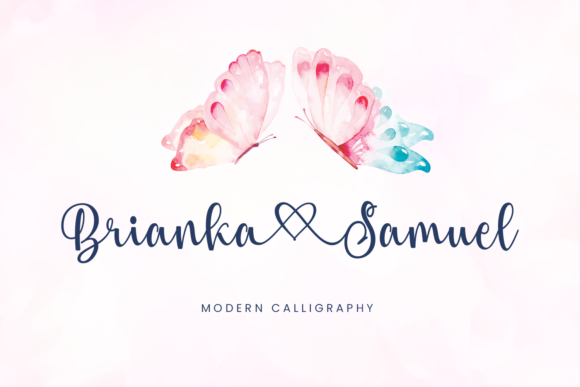
Brighten Up Your Designs with the Elegant Brianka Samuel Font
As designers, we’ve all had those moments where we stumble upon a font that sparks creativity and sets our projects apart. For me, it was when I discovered the Brianka Samuel Font – a beautiful handwritten font that exudes romance and authenticity. Its cursive characters and modern vibe immediately caught my attention, and I knew I had to learn more.
The Brianka Samuel Font is a versatile typeface that can add a touch of elegance to a wide range of designs, from wedding invitations and birthday cards to thank you notes and beyond. Its unique blend of classic and modern elements makes it a valuable asset for designers looking to create distinctive and memorable pieces.
Whether you’re a seasoned designer or just starting out, the Brianka Samuel Font is sure to inspire your next creative project. Its beauty and versatility make it a must-have for anyone looking to add a personal touch to their designs.
Brianka Samuel Font Key Features
- Font Family: Brianka Samuel Font is a unique, hand-drawn script font.
- Unique Characteristics: Features a flowing, cursive design with elegant flourishes and subtle texture, making it ideal for creative and artistic applications.
Brianka Samuel Font Review
As a designer, I’ve had the chance to work with the Brianka Samuel Font, and I must say, it’s a decent addition to any design project. ✨ One thing that really stands out is its elegant and refined aesthetic, making it perfect for high-end branding or luxury product designs. The font’s subtle curves and lines create a sophisticated look that’s hard to ignore.
Another aspect where the Brianka Samuel Font shines is its versatility. ✨ It comes in multiple weights and styles, allowing designers to create a wide range of effects and moods. Whether you’re going for a bold, statement-making look or a more understated, refined feel, this font has got you covered.
- ⚠️ Limited language support, which may be a concern for designers working with non-English languages.
- ⚠️ The font may not be suitable for body text, as it can be quite ornate and may be difficult to read in larger quantities.
Overall, the Brianka Samuel Font is a solid choice for designers looking to add a touch of elegance and sophistication to their projects. While it may have some limitations, its versatility and refined aesthetic make it a valuable addition to any design toolkit.
The Brianka Samuel Font is suitable for a variety of design applications, including:
- Body text
- Infographics and data visualizations
Alternatives to Brianka Samuel Font
The Merriweather Font is a classic serif font that is suitable for body text, particularly in formal documents and academic papers. It’s known for its readability and elegance. When to use: Formal documents, academic papers, and body text.
Comparison to Brianka Samuel Font: While both fonts are serif fonts, Merriweather Font is more classic and traditional in its design, whereas Brianka Samuel Font has a more modern and elegant feel.
2. Playfair Display Font
The Playfair Display Font is a luxurious and elegant font that is perfect for headlines and titles. It’s known for its sophistication and opulence. When to use: Headlines, titles, and luxury brands.
What is the recommended font size for the Brianka Samuel Font?
The Brianka Samuel Font is designed for optimal readability at font sizes between 12 and 24 points. For body text, we recommend using a font size of 14 or 16 points for clear and easy-to-read text.